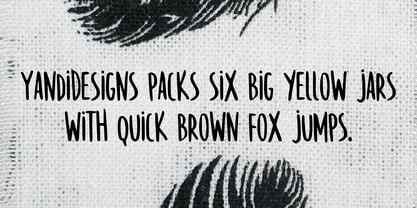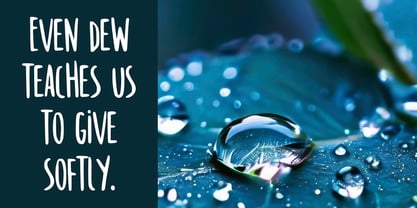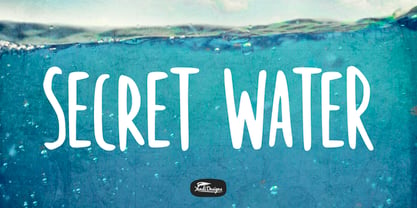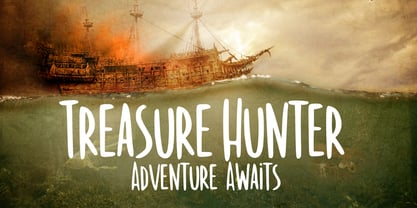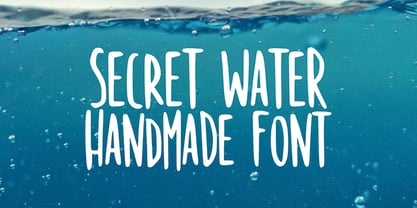
Secret Water
The Secret Water Font Family was designed by Yandi Adi Prasetya and published by YandiDesigns. Secret Water contains 1 styles. More about this family
Secret Water is a captivating handwritten font inspired by the natural flow of ink mixed with water. Its slightly random and organic strokes create an authentic, artistic feel that enhances its originality and charm. The character shapes convey a sense of spontaneous movement, making the font lively and expressive. This typeface features an all-caps design, making it ideal for projects that require a bold handwritten style. Despite its strong presence, Secret Water also exudes a cute and playful nuance, making it suitable for children's projects as well as modern aesthetic designs. Perfect for posters, branding, packaging, social media, quotes, and creative crafts, Secret Water adds a unique personality to any design. Let this font bring a distinctive and memorable touch to your project, reflecting the natural beauty and uniqueness of Secret Water itself.